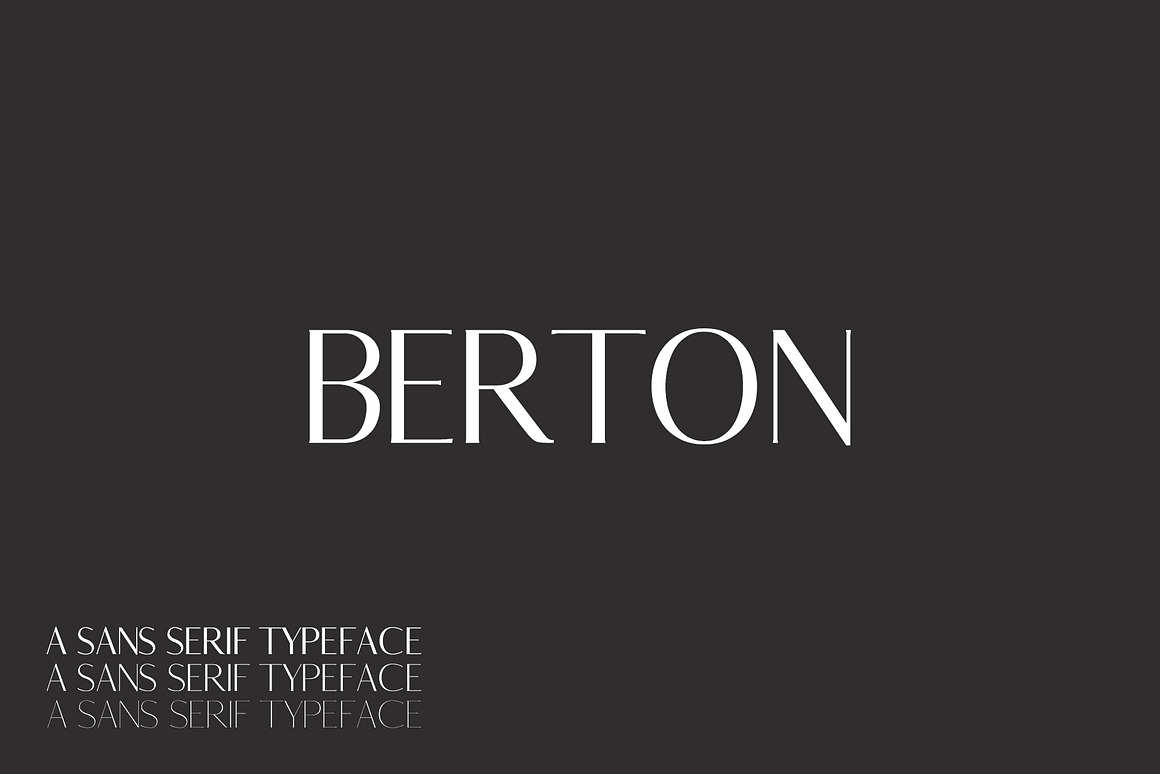
Berton Sans Serif 3 Font Family Pack
Berton Sans Serif 3 Font Family Pack is perfect for modern corporate branding, professional website design, clean mobile interfaces, contemporary business presentations, minimalist marketing materials, tech startup communications, digital advertising campaigns, and streamlined corporate documentation.
Berton Sans Serif 3 Font Family Pack is exciting because it combines geometric precision with refined humanist characteristics, featuring optimized letterforms and balanced proportions that create sophisticated professionalism while maintaining exceptional readability. Its contemporary character projects reliability and innovation across all modern business communication platforms.
Berton Sans Serif 3 Font Family Pack family includes light, regular, and bold weights with corresponding italic variations, offering designers six expertly balanced font styles for comprehensive typographic solutions and professional hierarchical systems.
Professional designers consistently choose Berton Sans Serif 3 Font Family Pack for its outstanding performance in corporate applications and business communications. The font's optimized character spacing and contemporary styling ensure excellent legibility across various contexts while maintaining distinctive personality that supports strong brand recognition. Its versatile weight range accommodates diverse professional needs from detailed business documentation to impactful corporate presentations.
Contemporary businesses appreciate Berton Sans Serif 3 Font Family Pack's ability to communicate professional excellence while maintaining modern appeal and business accessibility. Its balanced personality works equally well in conservative corporate settings and progressive business environments, making it an essential typography resource for organizations seeking to establish credible, contemporary brand presence through superior typographic communication and reliable professional performance.